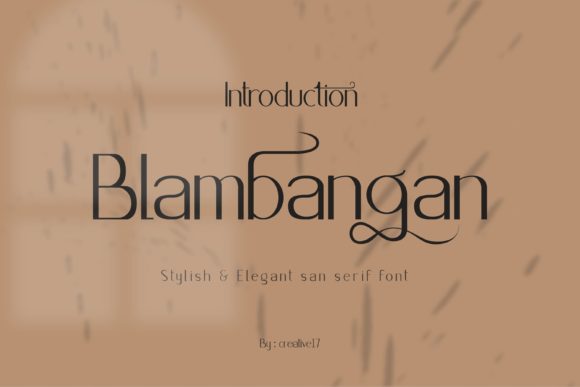
The Blambangan Font: A Stylish, Elegant Sans Serif for Your Creative Projects
Blambangan is a stylish, elegant, and sans serif font that has become a staple in my design toolkit. Its incredibly versatile style makes it perfect for a wide range of creative projects, from branding and advertising to crafting and DIY tutorials.
What I Love About Blambangan Font
So, what makes Blambangan font so special? Here are a few things that I absolutely love:
• ✨ PUA encoded: This means that you can access all of the glyphs and swashes with ease, giving you endless possibilities for creative expression.
• ✅ Elegant and sophisticated: Blambangan font exudes luxury and refinement, making it perfect for high-end branding and design projects.
• 💫 Versatile: Whether you’re designing a logo, brochure, or social media graphic, Blambangan font adapts seamlessly to any design style.
While Blambangan font is an amazing addition to any design project, there are a few small quirks to be aware of:
• 🤔 Glyph compatibility: Some glyphs may not work seamlessly with certain software or platforms, so be sure to test them before finalizing your design.
• ⚠️ Overuse: As with any font, using Blambangan excessively can lead to a cluttered design. Balance is key to making the most of this beautiful font.
Blambangan font was inspired by the beautiful landscapes of Indonesia’s Blambangan Peninsula. The designer aimed to capture the elegance and sophistication of the region’s culture and architecture.
What is Blambangan font? Blambangan font is a stylish, elegant sans serif font with PUA encoding.
Is Blambangan font suitable for body text? While Blambangan font is elegant, it’s best suited for headings and titles due to its luxurious feel.
With its elegant style and versatile design, Blambangan font is sure to become a favorite in your design toolkit. Get creative and experiment with its beautiful glyphs and swashes to create stunning designs!